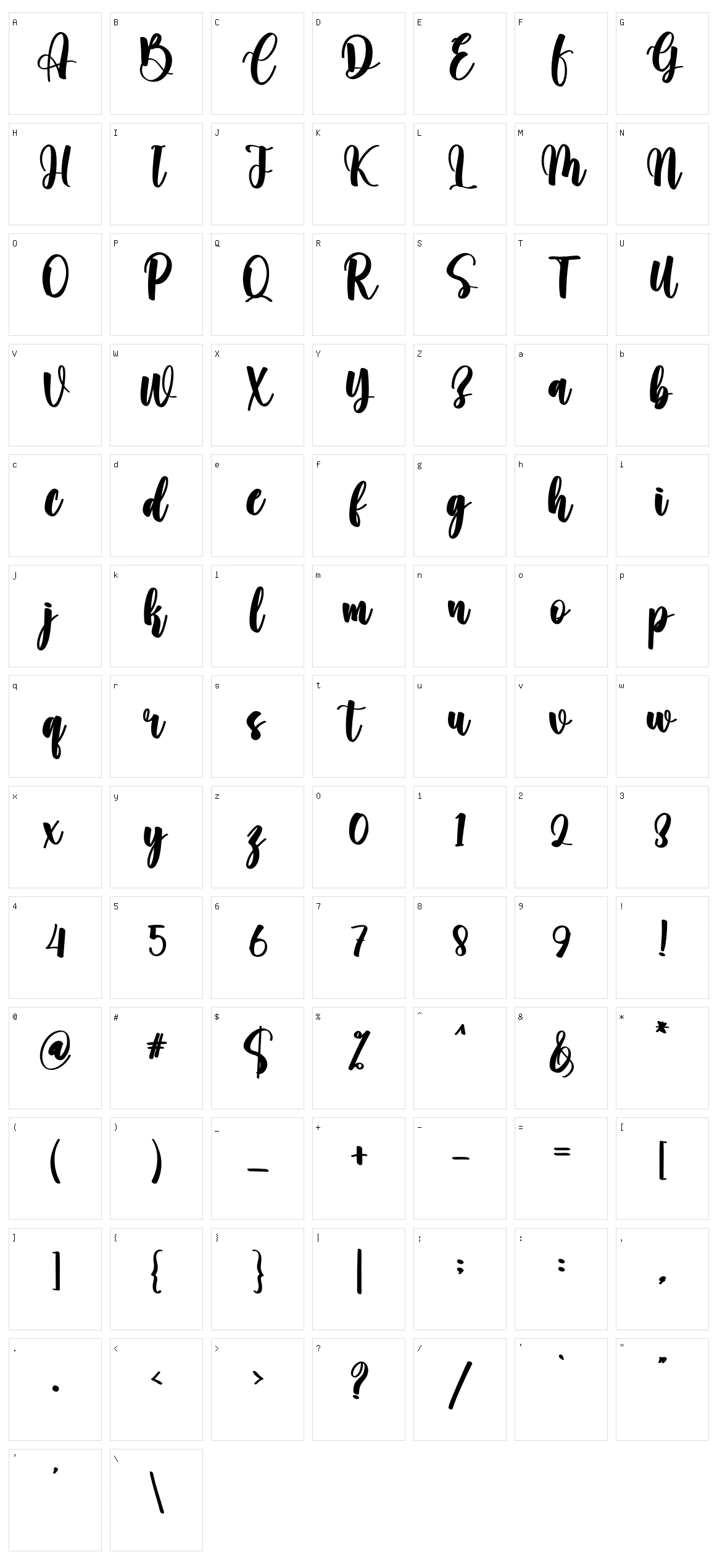
The free font Calling is carefully designed by plafont store, showcasing a thoughtful balance of creativity and usability and falls under the Script font style. When you download the ZIP file, it contains only 80.04 KB of font files, making it lightweight and quick to download. Please review the license details below to understand permitted usage and distribution rights. If license information is not available, we recommend using this font for personal projects only or contacting the author directly for commercial usage permissions.